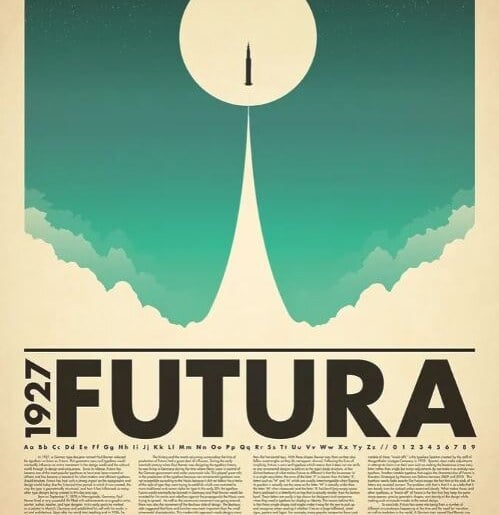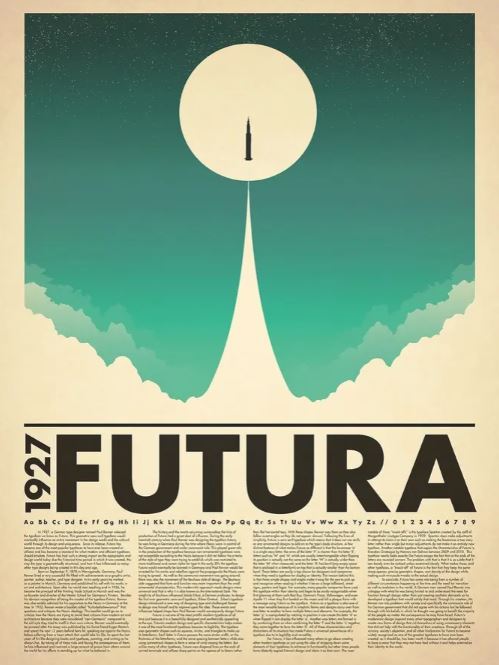
Futura Font – Fonts for Architects
In the realm of graphic design and architecture, the choice of typography plays a pivotal role in conveying a brand’s identity or an architect’s vision. Among the myriad of fonts available, Futura stands out as a timeless and versatile typeface that has made a significant mark in the design world. In this comprehensive exploration, we delve into the origins, characteristics, and practical applications of Futura font, shedding light on its influence in shaping the aesthetics of architectural portfolios.
Unveiling the Origins of Futura Font
Designed by Paul Renner in the late 1920s, Futura font emerged during the Bauhaus movement, reflecting the principles of simplicity, functionality, and geometric forms. Renner envisioned a typeface that would break away from the ornate styles of the time, embracing a modern, sans-serif design. Futura, with its clean lines and minimalistic approach, became a quintessential representation of the Bauhaus philosophy.
The Distinctive Characteristics of Futura Font
Geometric Precision:
Futura’s geometric shapes and consistent proportions contribute to its modern appeal. The typeface maintains a sense of balance and clarity, making it suitable for straightforwardly conveying information.
Variants and Weights:
Futura offers a range of weights, from light to bold, providing designers and architects with versatility in their creative expressions. Whether it’s a delicate caption or a bold heading, Futura adapts seamlessly to diverse design needs.
Timelessness and Legibility:
Despite its vintage origins, Futura has stood the test of time, remaining relevant and legible across various mediums. Its timeless quality makes it an enduring choice for architects seeking a font that transcends design trends.
Integrating Futura Font in Architectural Portfolios
Crafting a Distinctive Brand Identity:
Architectural portfolios serve as a visual representation of a professional’s body of work. By incorporating Futura font, architects can establish a cohesive and contemporary brand identity. Consistent use of this typeface across documents, presentations, and websites creates a visual unity that reinforces the architect’s design ethos.
Emphasizing Modernity in Project Descriptions:
Futura’s modern aesthetic enhances the presentation of project descriptions and narratives. Its clean lines and open letterforms provide an uncluttered canvas for showcasing architectural details, while its readability ensures that the audience can easily absorb the information presented.
Creating Consistency in Visual Communication:
Consistency in visual communication is crucial for a professional presentation. Futura’s diverse weights allow architects to maintain a consistent yet dynamic visual hierarchy, ensuring that important information is highlighted appropriately.
Case Studies: Futura in Architectural Portfolios
Foster + Partners:
Renowned architectural firm Foster + Partners incorporates Futura font in their portfolio materials. The firm’s use of Futura aligns with their commitment to modern and sustainable design, enhancing the overall aesthetic appeal of their presentations.
Zaha Hadid Architects:
Zaha Hadid Architects, known for their avant-garde designs, employs Futura font to convey a sense of innovation and precision in their portfolio documents. The clean lines of Futura complement the fluidity of Zaha Hadid’s architectural forms, creating a visually compelling narrative.
Strategic Implementation: Tips for Architects
Selecting the Right Weight:
Consider the nature of the content when choosing the weight of Futura. For headings and titles, opt for bold weights to create emphasis, while lighter weights can be used for body text to maintain readability.
Maintaining White Space:
Futura’s open letterforms shine when accompanied by ample white space. Ensure that the layout of portfolio materials allows for breathing room, enhancing the overall visual appeal.
Experimenting with Pairings:
While Futura is a versatile typeface on its own, architects can experiment with pairing it with complementary fonts to add nuance and variety to their portfolios. Striking a balance between consistency and diversity can elevate the visual impact.
Conclusion: Elevating Architectural Narratives with Futura Font
In the dynamic intersection of graphic design and architecture, Futura font emerges as a powerful tool for architects seeking to convey a modern, timeless, and cohesive brand identity. Its geometric precision, diverse weights, and legibility make it an ideal choice for crafting impactful portfolios. By exploring the strategic integration of Futura in renowned architectural firms and providing practical tips, architects can confidently embrace this iconic typeface to enhance the visual storytelling of their projects.
As the design world continues to evolve, Futura font stands as a testament to the enduring influence of Bauhaus principles, bridging the past and present in a seamless blend of form and function. Architects who harness the potential of Futura find themselves not only shaping letters but also shaping narratives that resonate with contemporary audiences. Embrace the legacy of Futura font and embark on a journey of design innovation that transcends time.